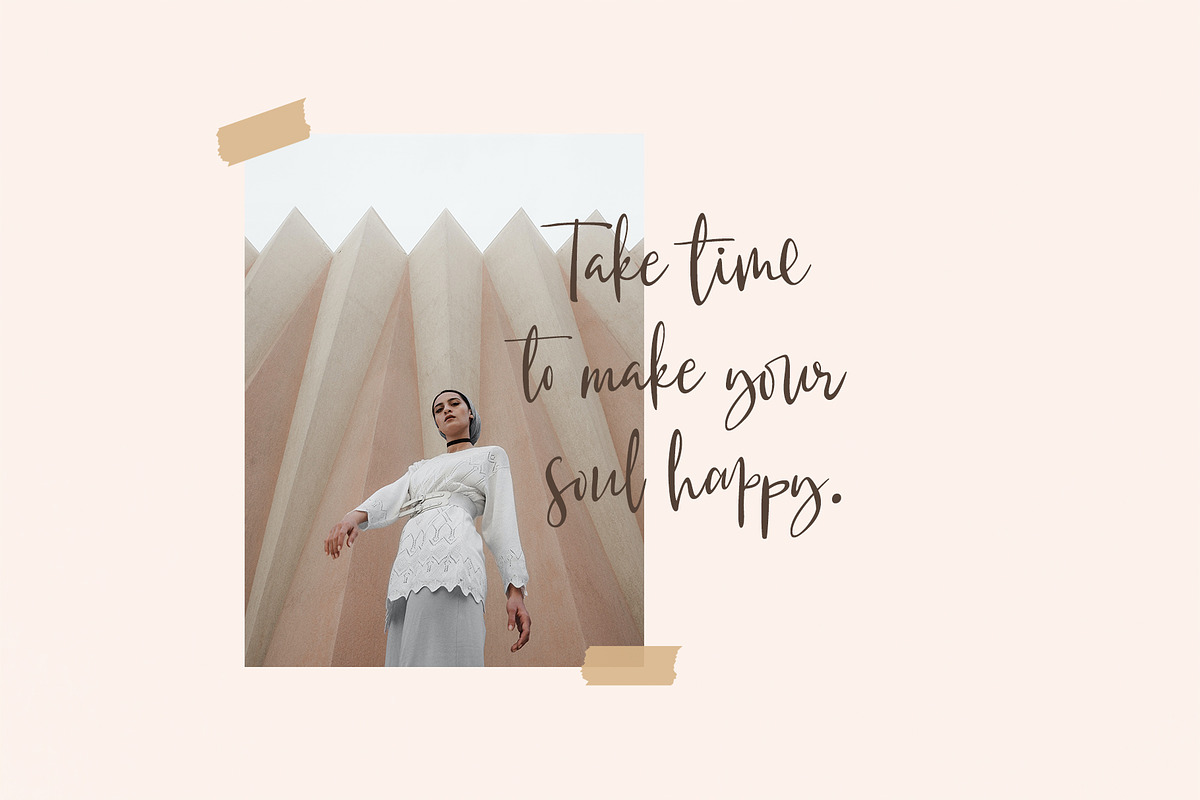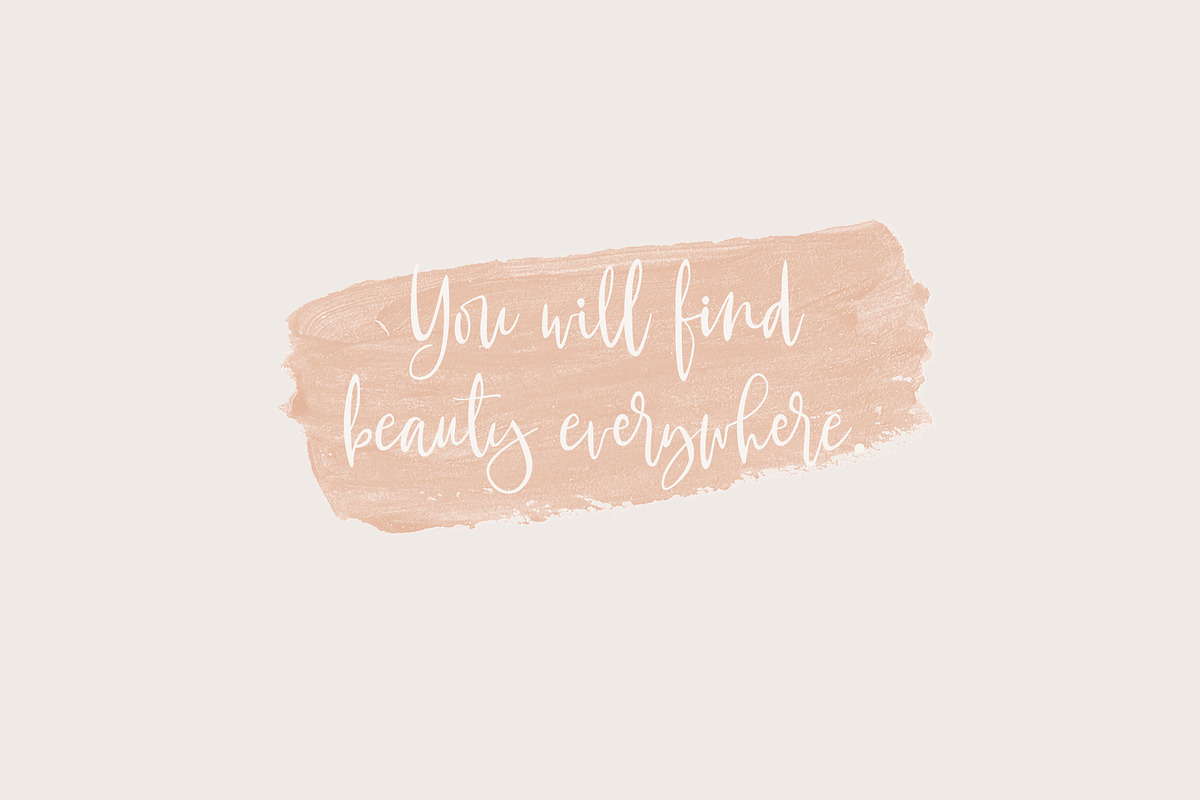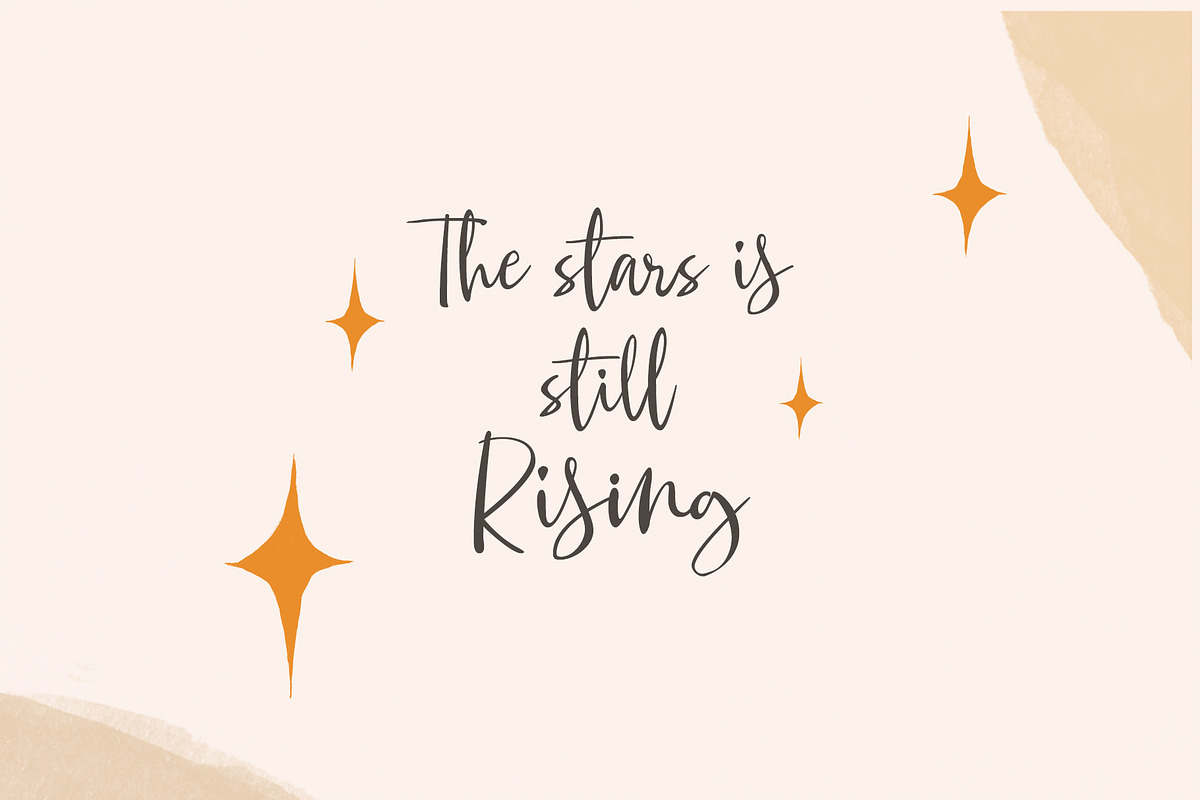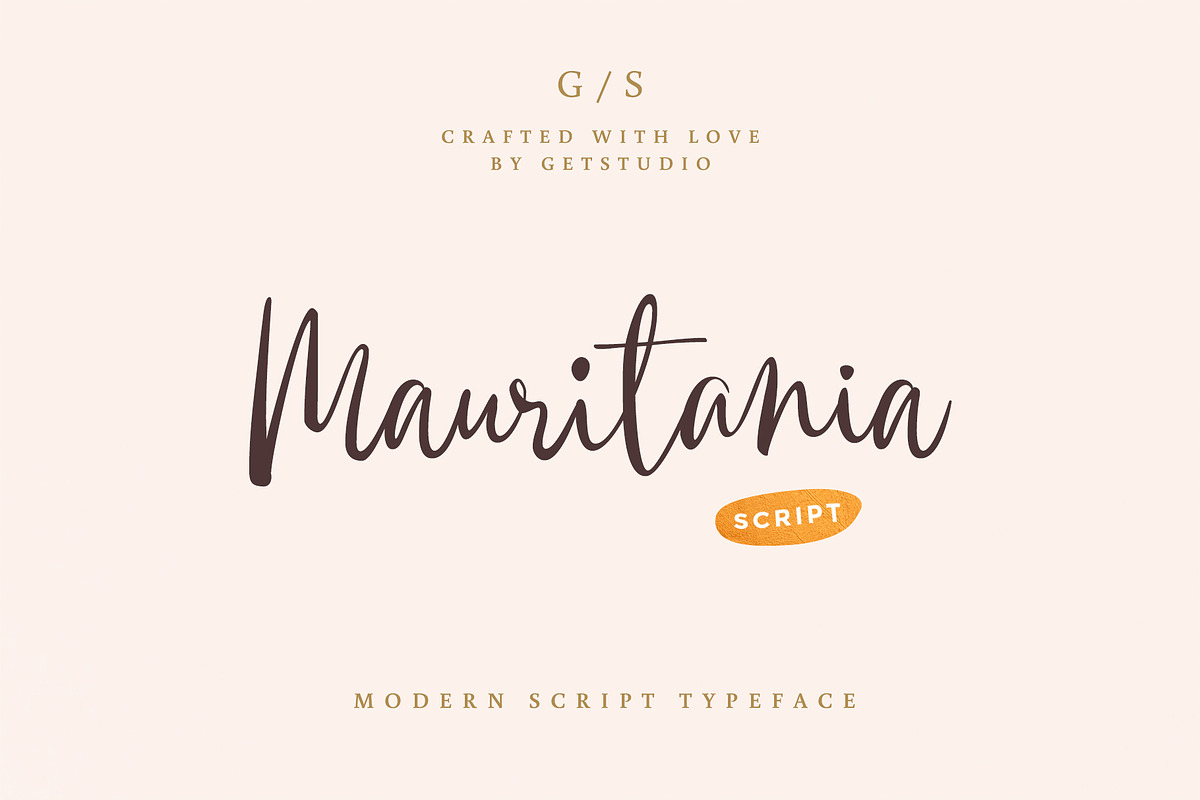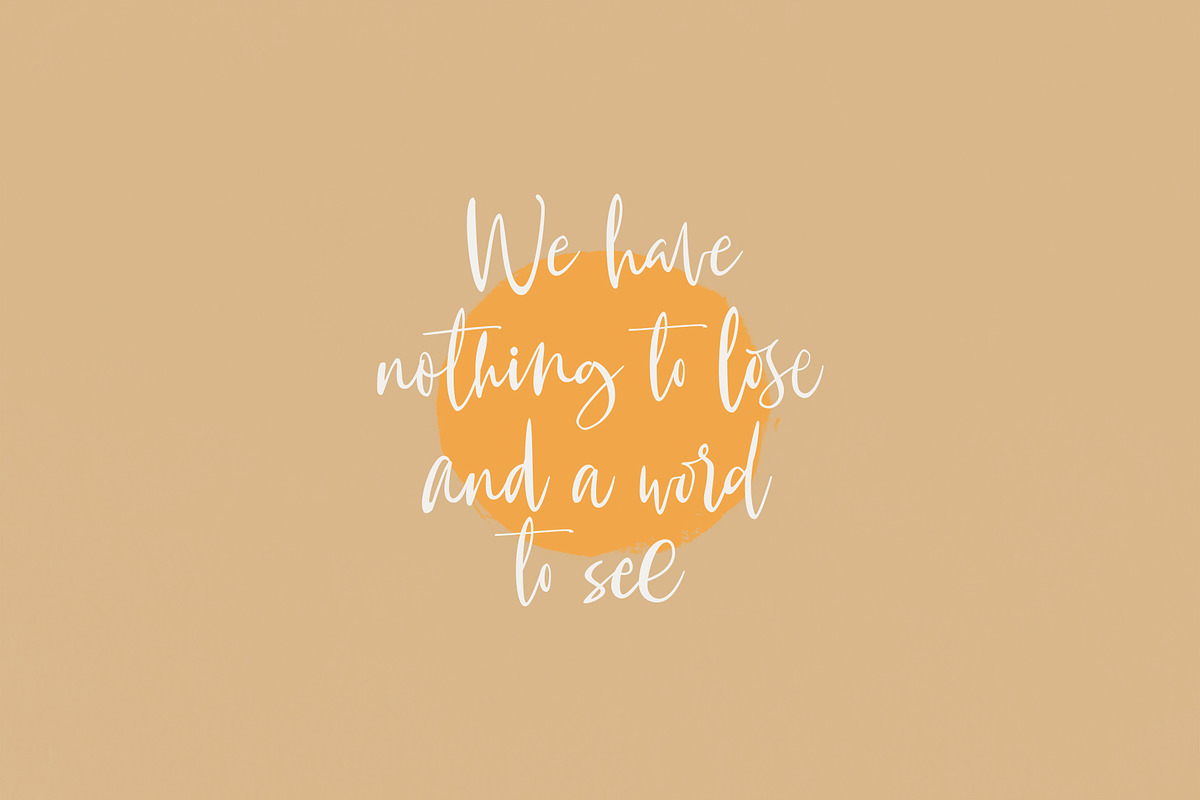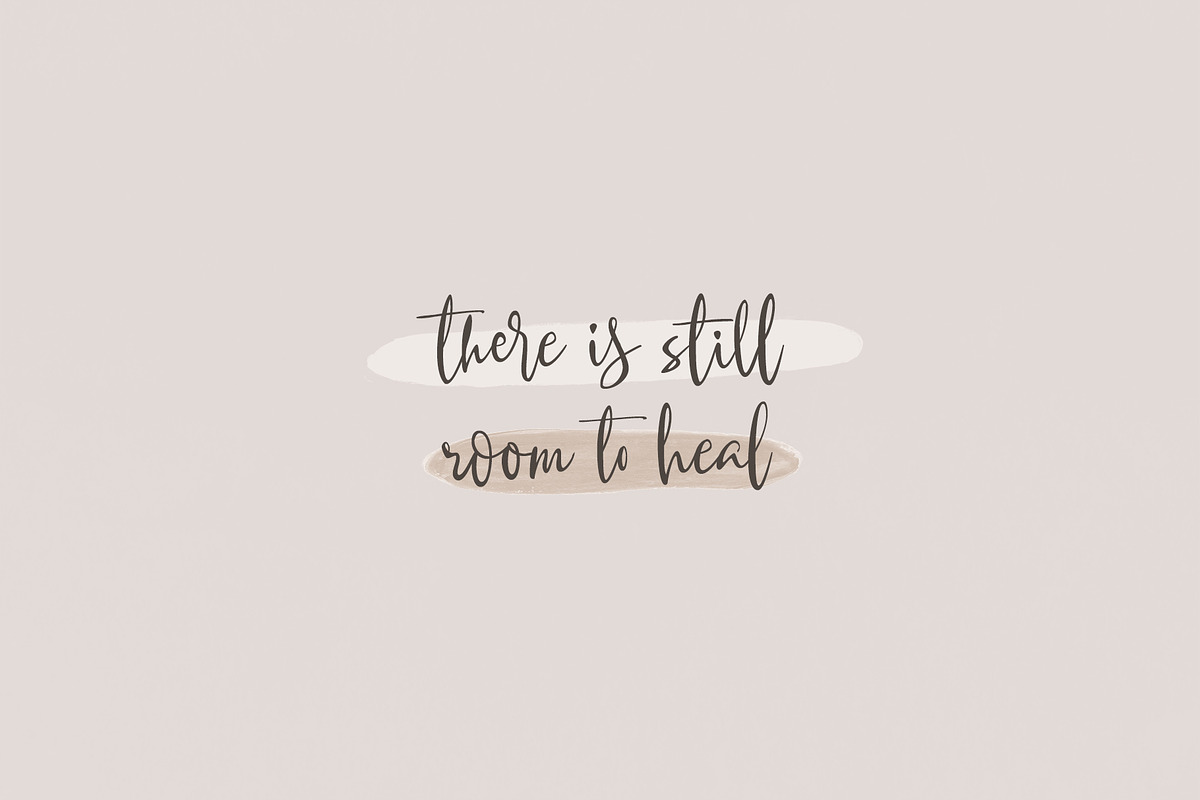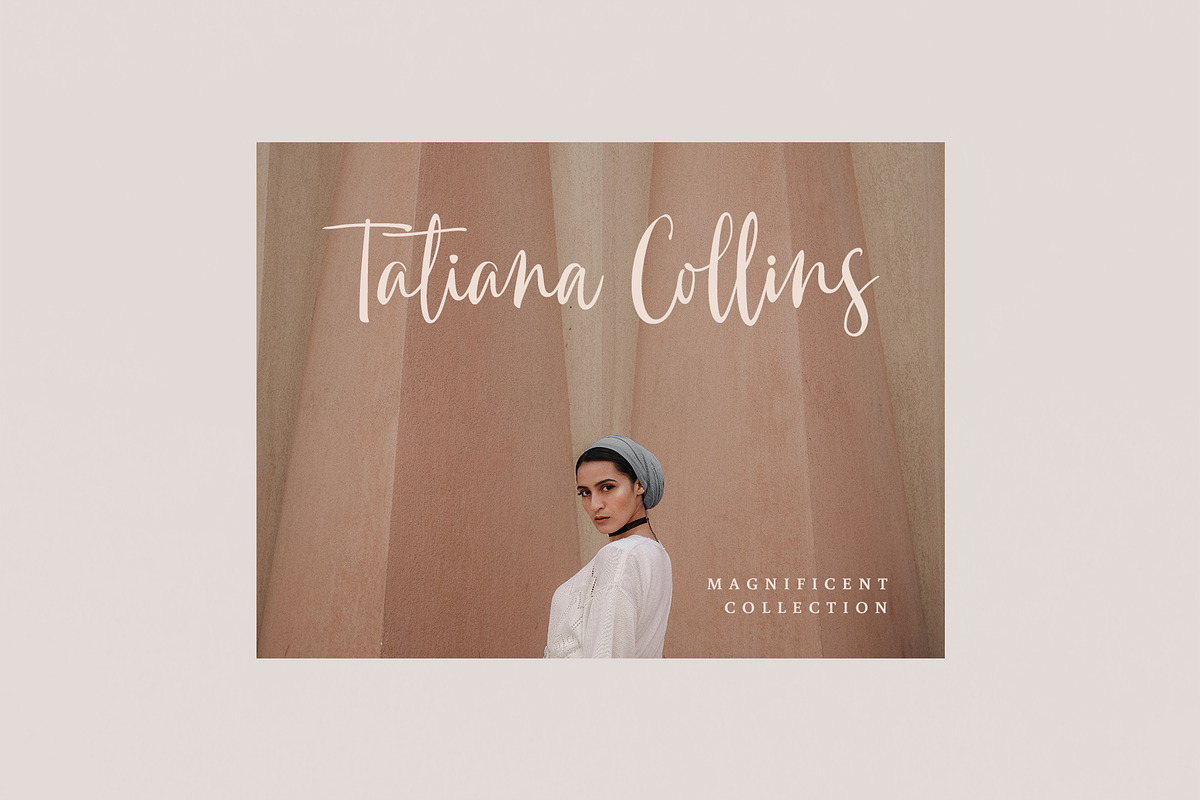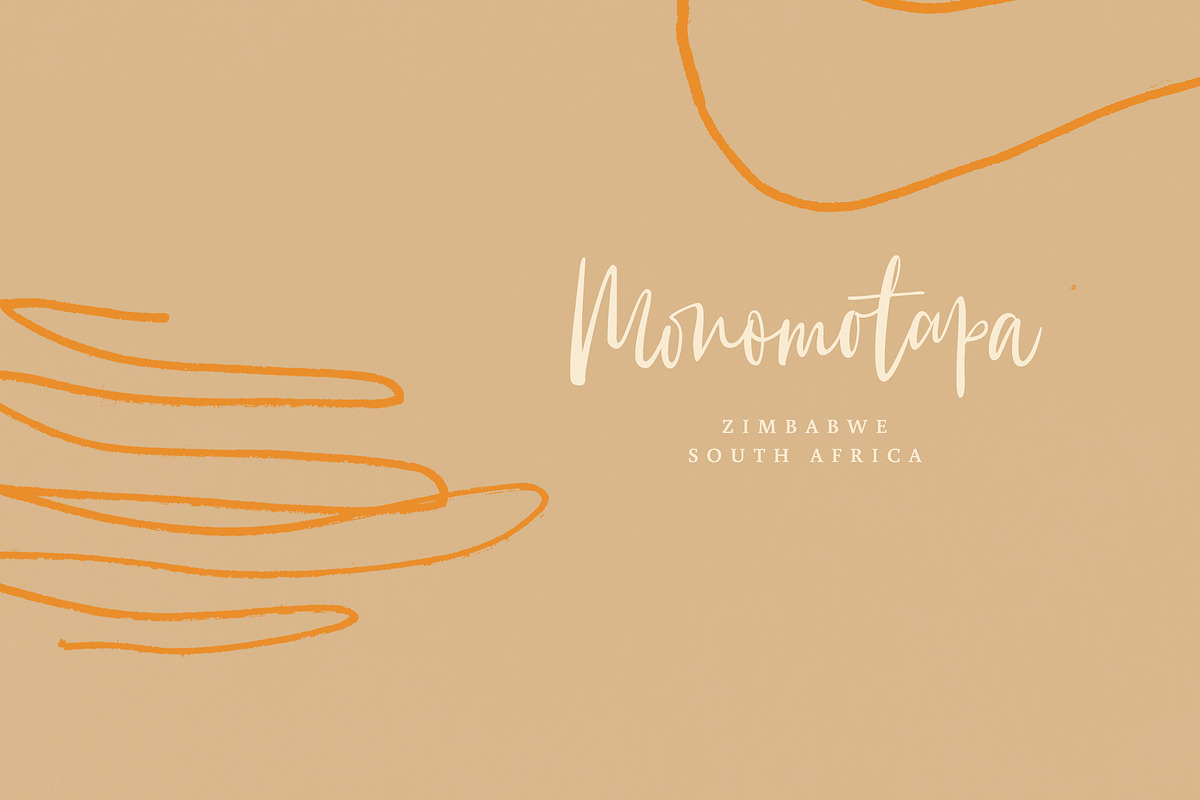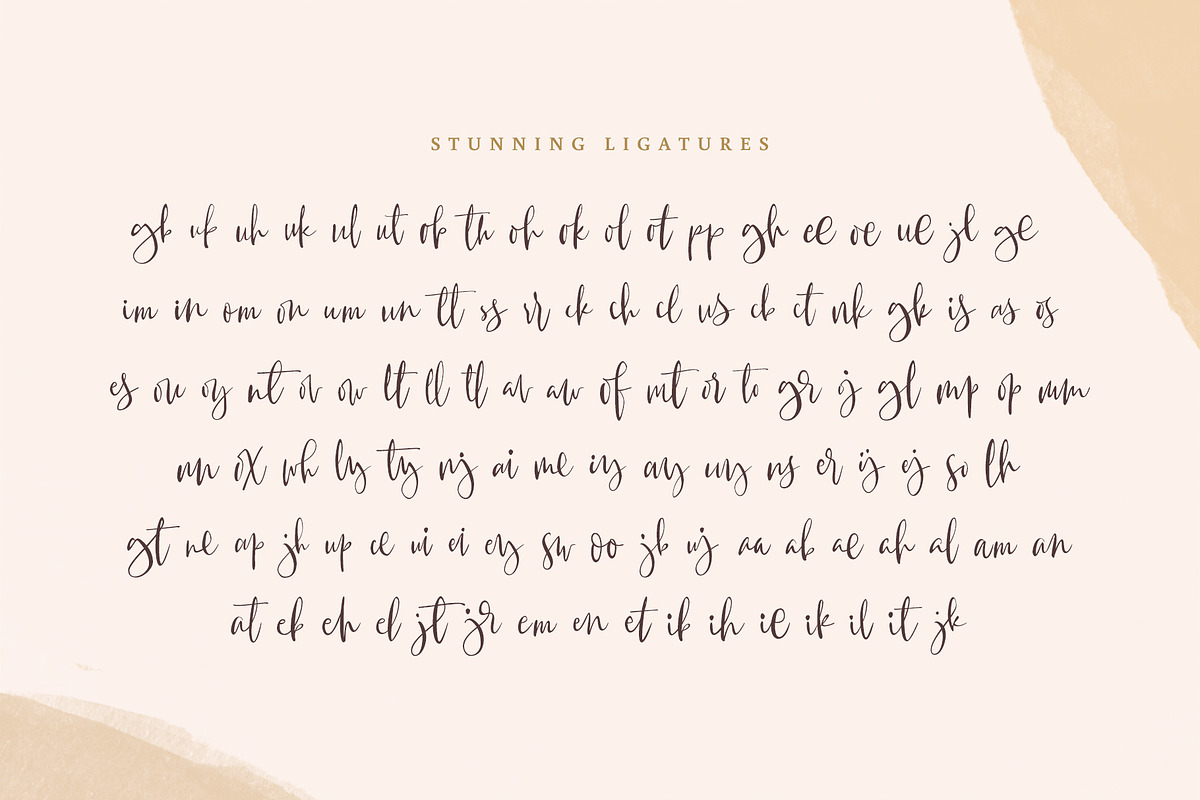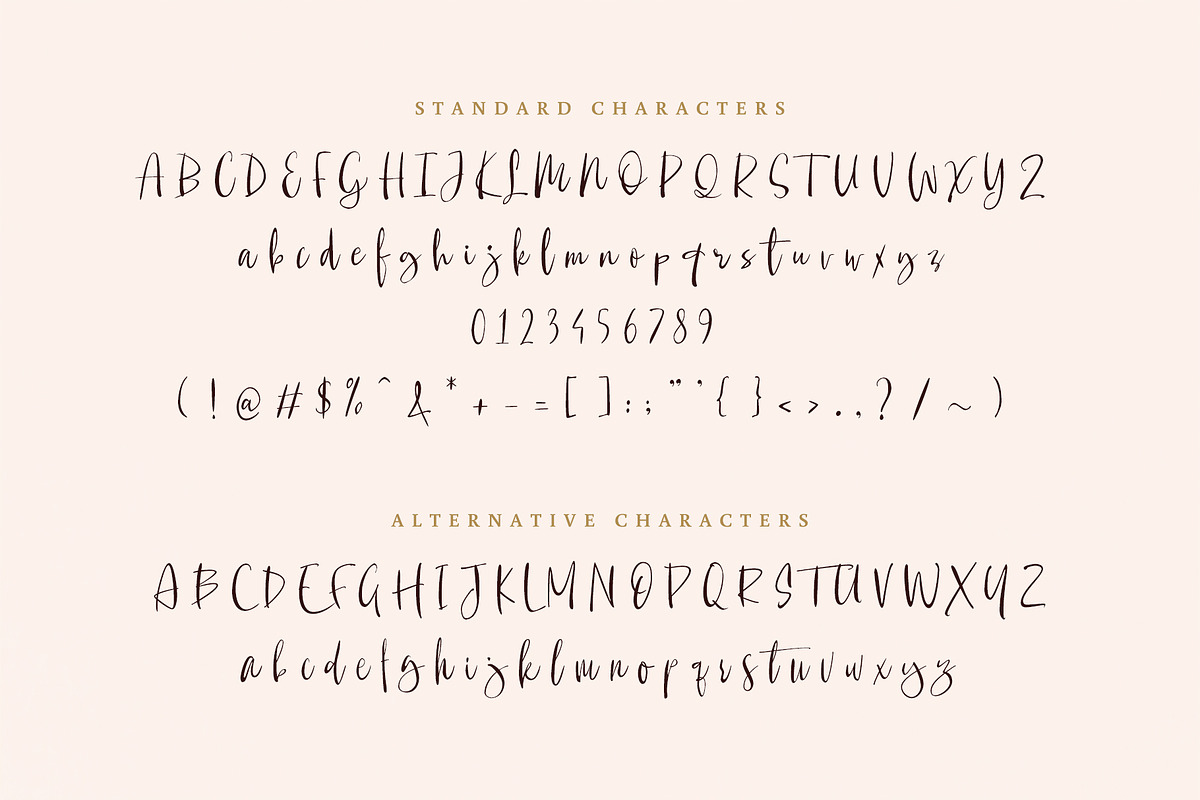
Mauritania
Introducing, Mauritania Script. This hand-made font is well crafted with a dancing baseline that makes this font perfect for delivering an extremely fearless message in your design without losing the natural impression.
Mauritania Script is very suitable for various types of design needs such as branding materials, t-shirt, food-packaging, business cards, logos, posters, and more.
This font comes with a complete set of lowercase alternates, numerals, a large range of punctuation ligatures, and Special European Characters.